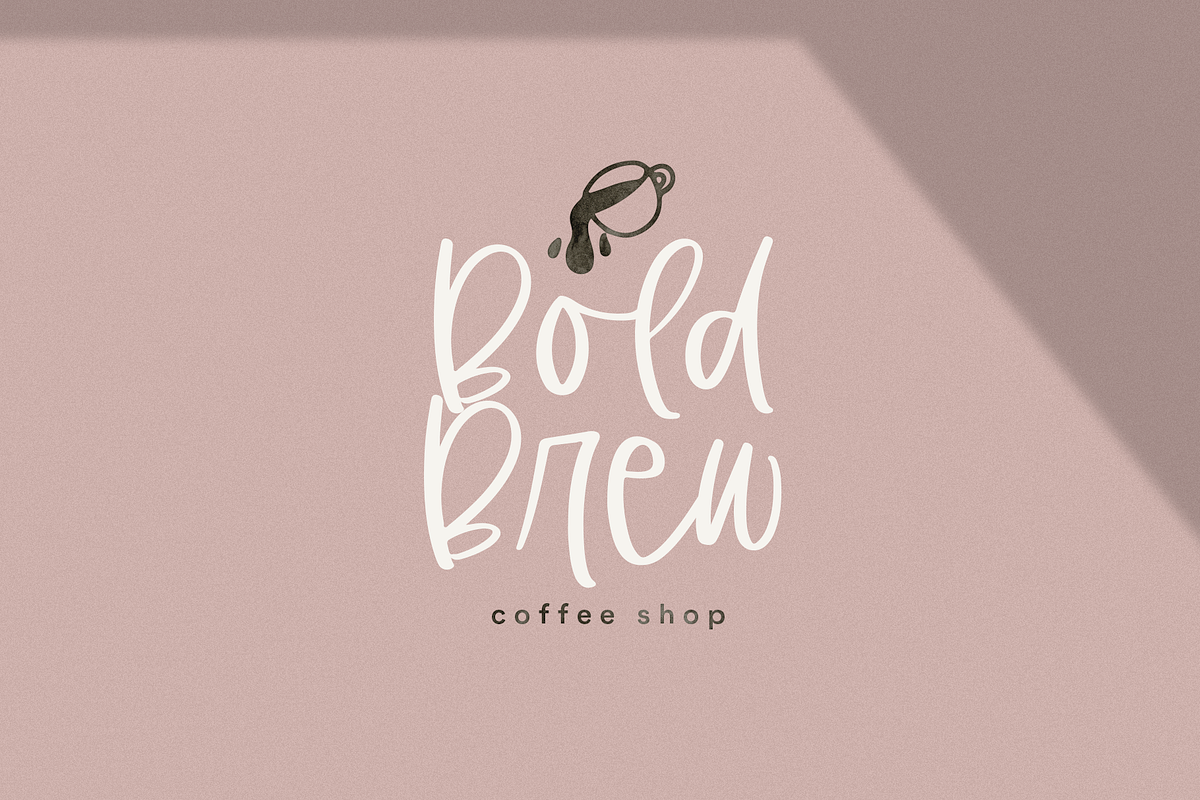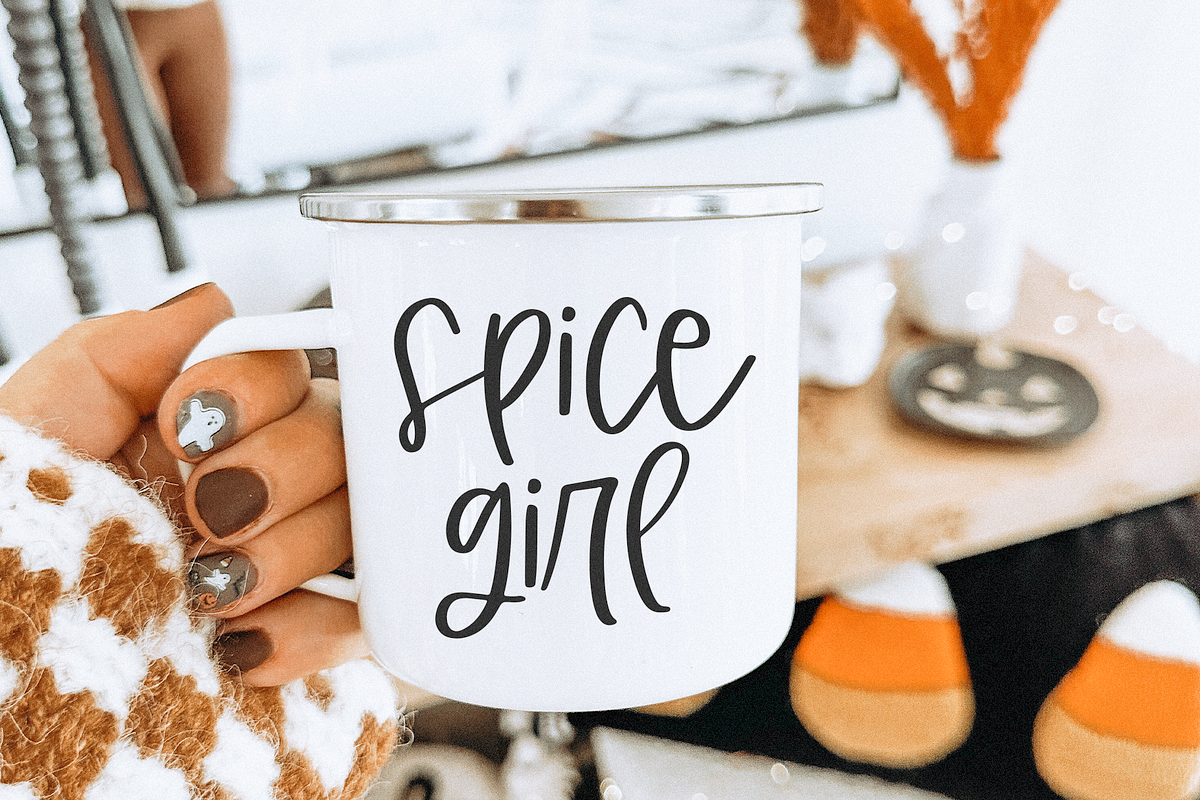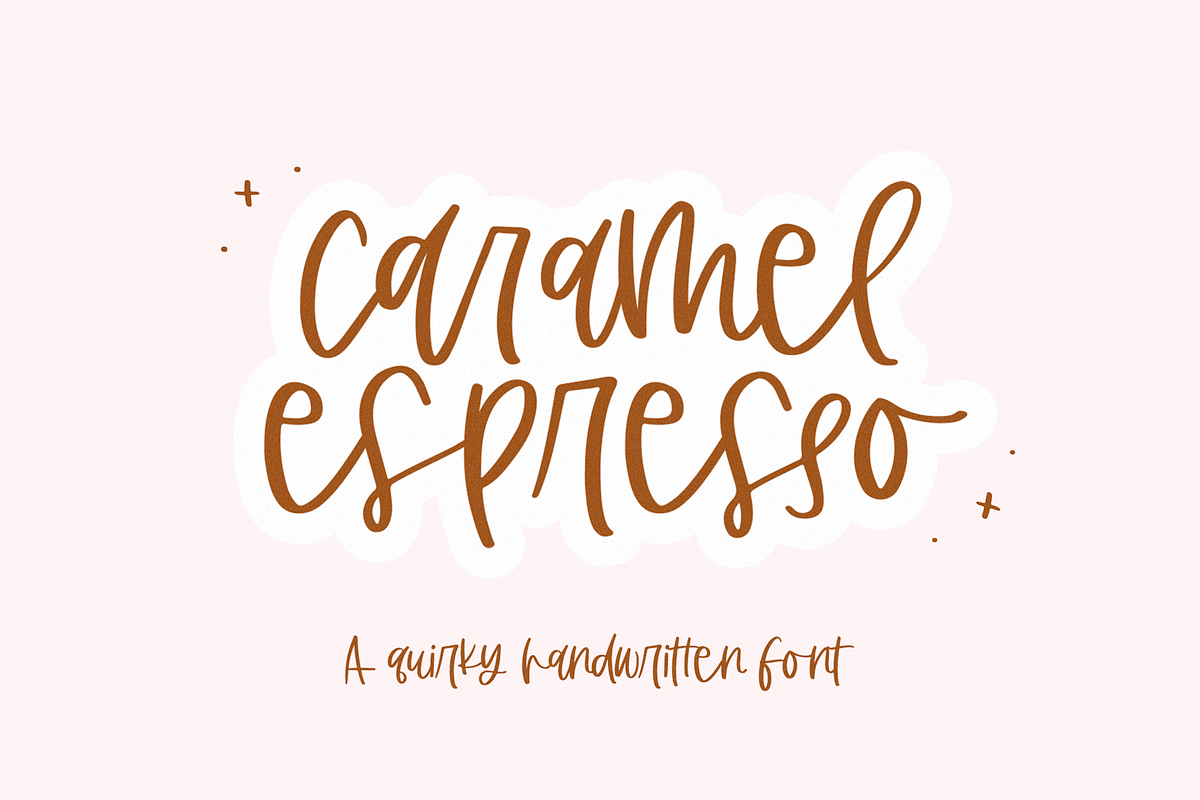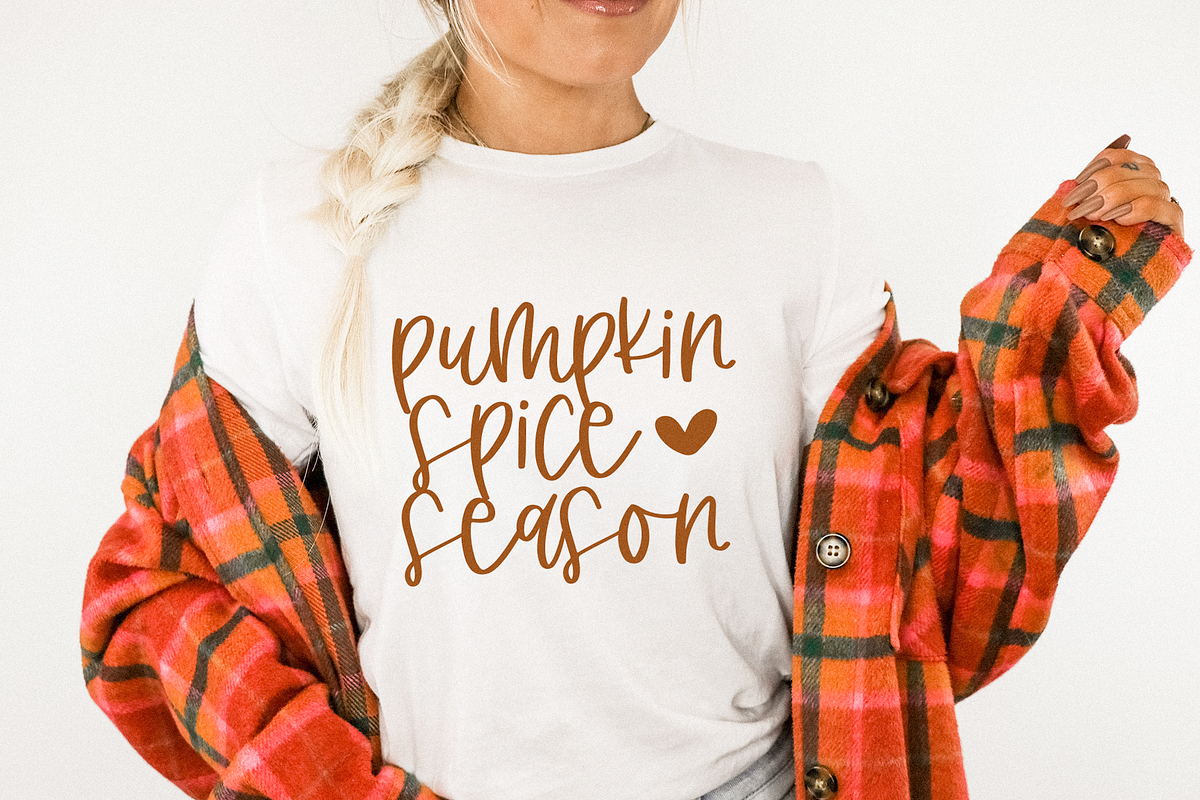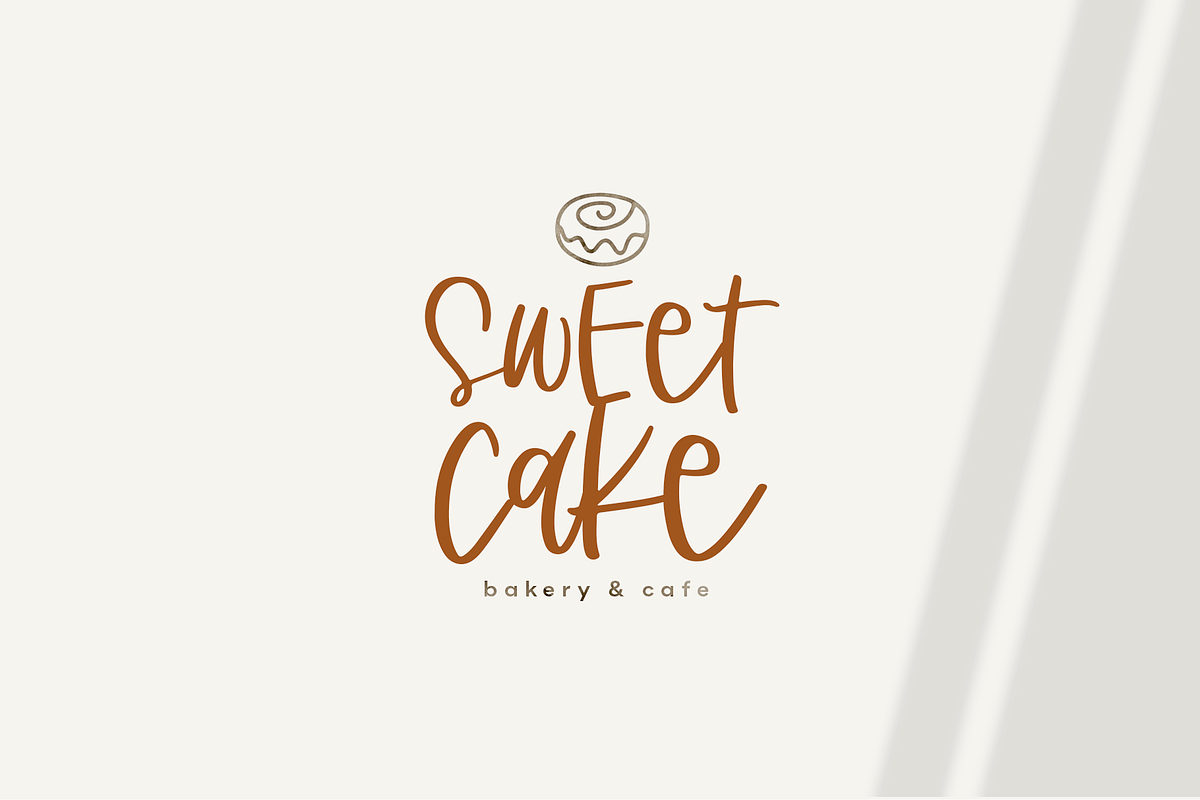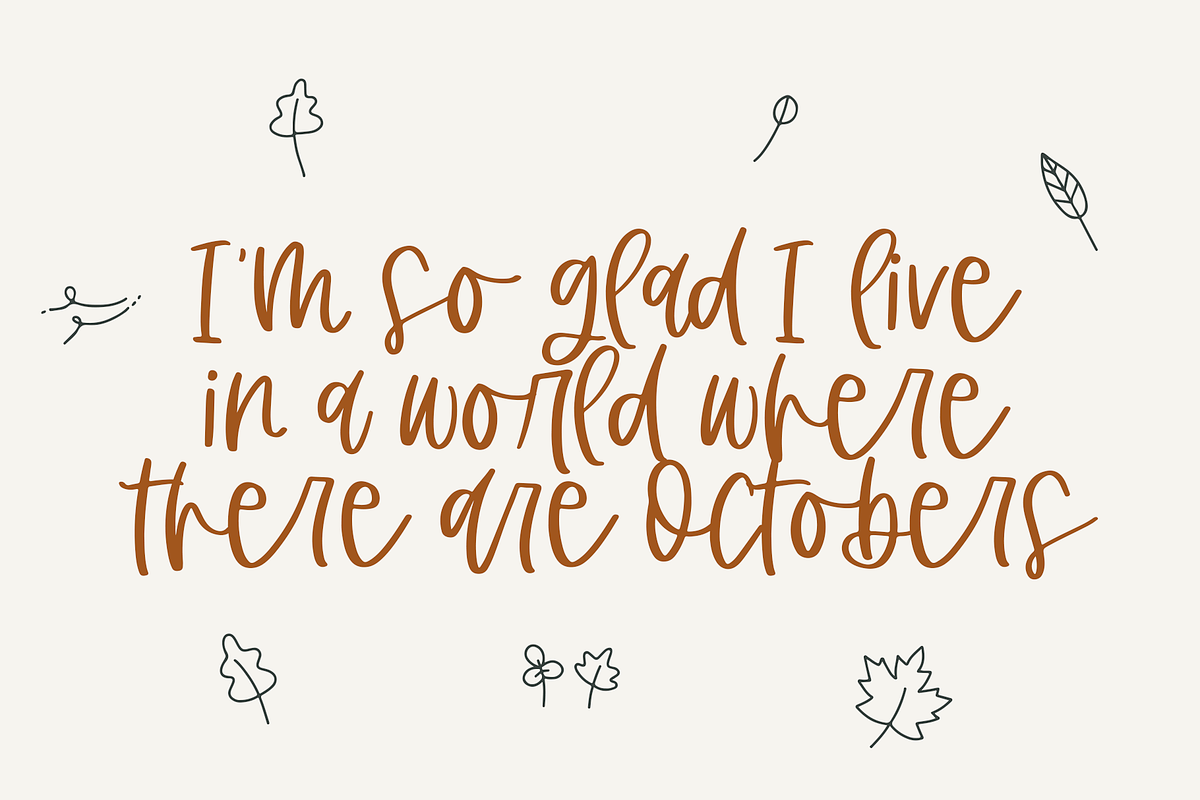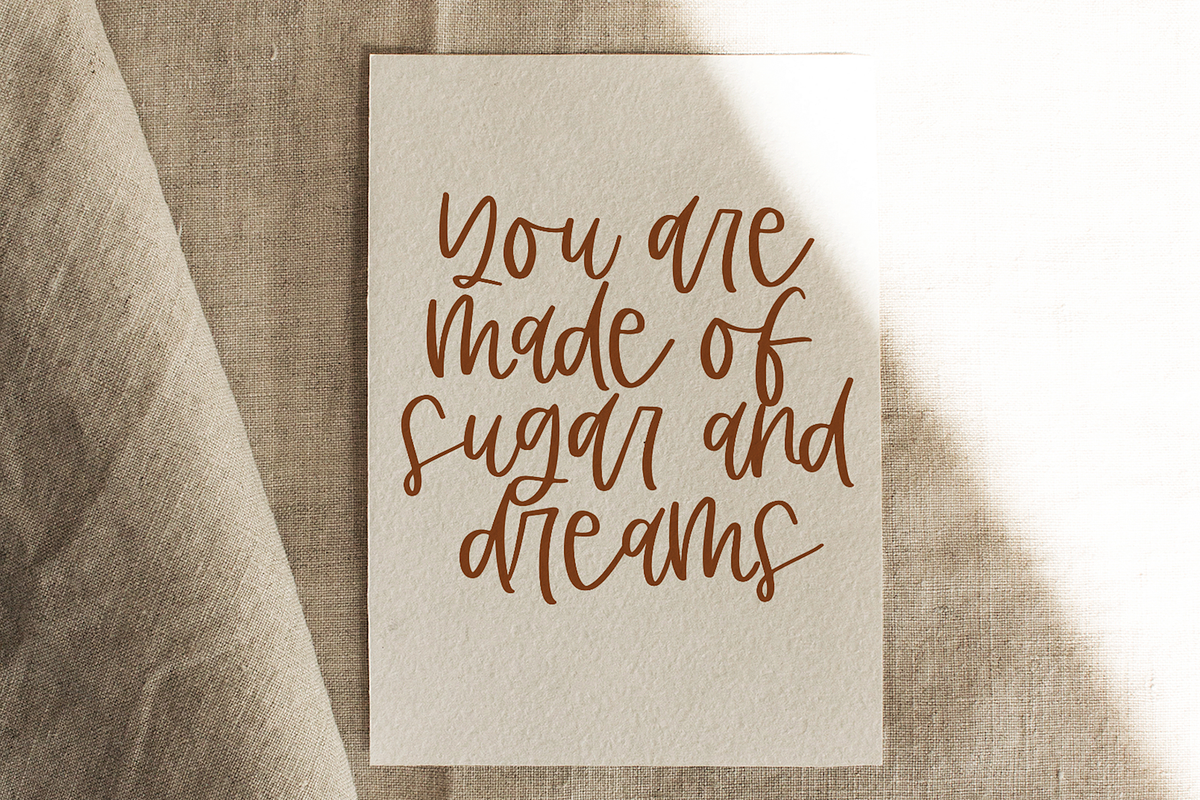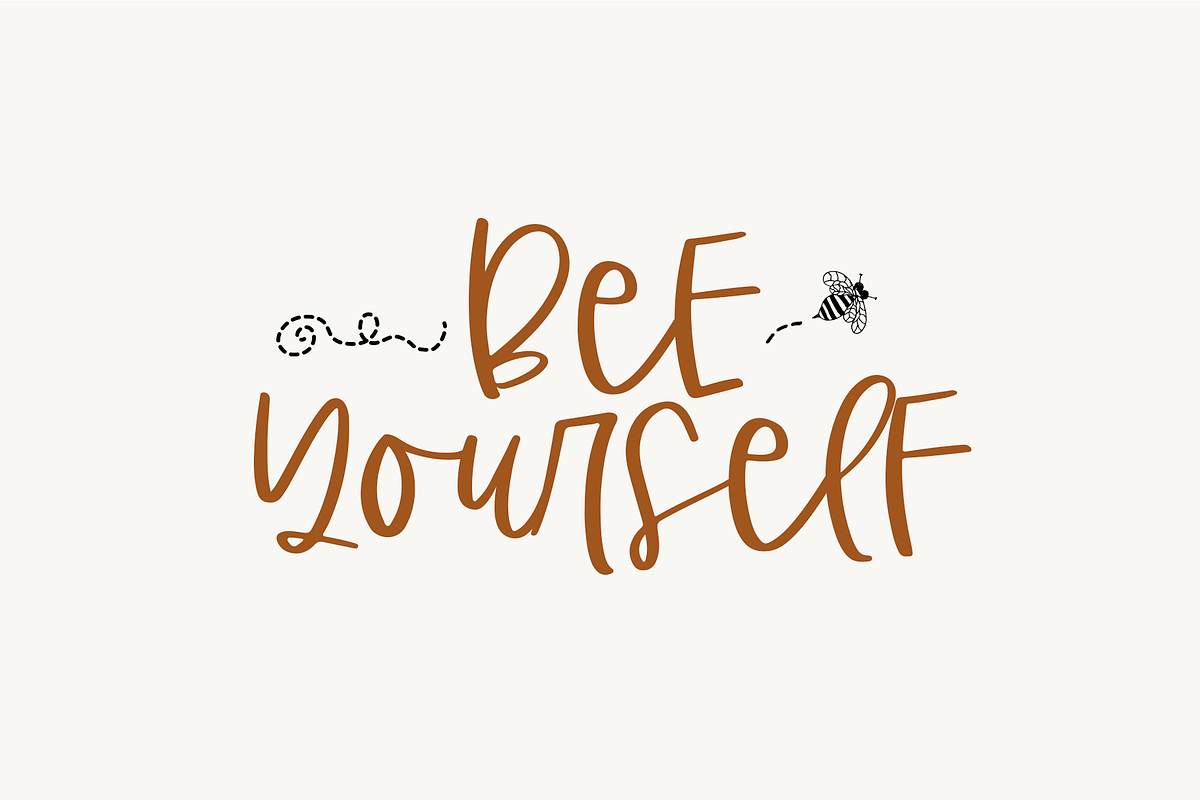
Caramel Espresso | Handwritten Font
Caramel Espresso is a modern handwritten script font.
This font is perfect for modern projects, headings, blogs, logos, brandings, invitations, and more!
Most accent characters are included.
Caramel Espresso | Handwritten Font by KA Designs fits naturally into Branding, posters, packaging, typography.